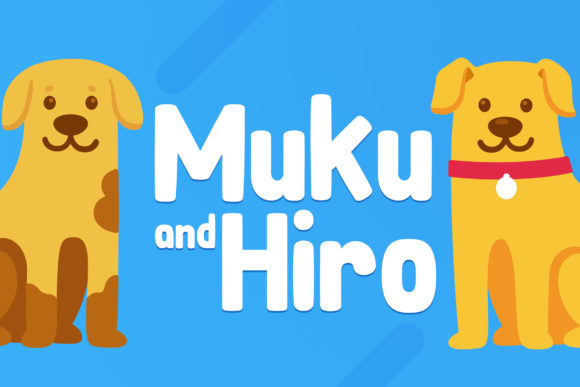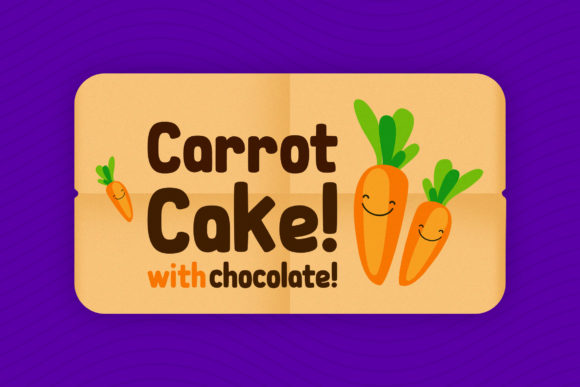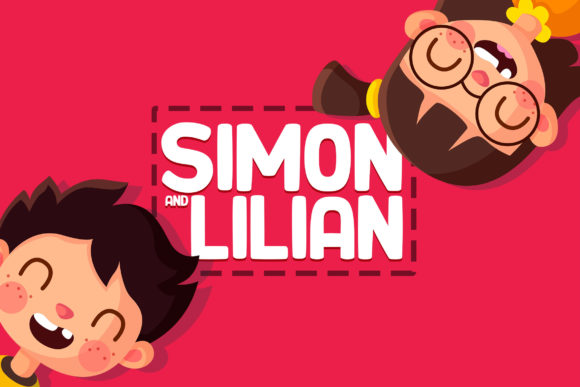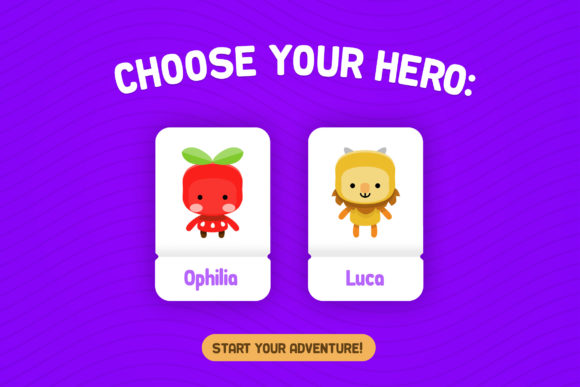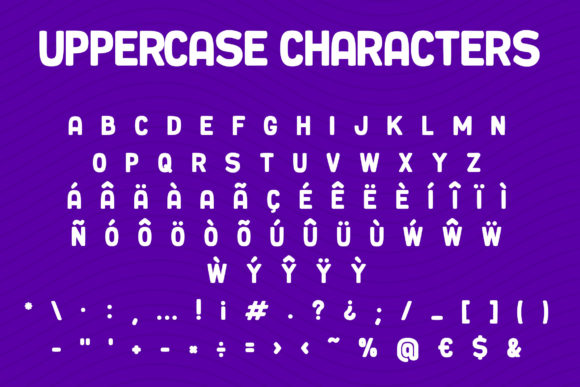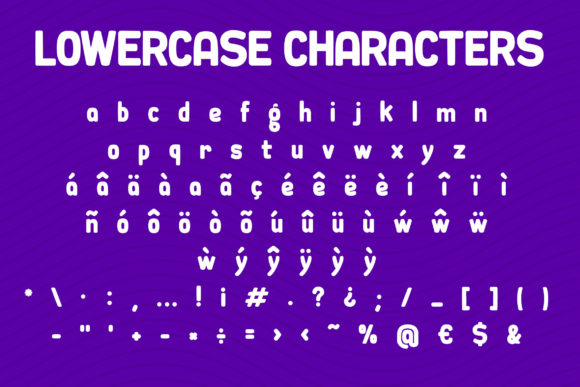
Introduction to Lucita Font
As a designer, have you ever been stuck on a creative project, struggling to find the perfect font to bring your vision to life? It’s a feeling many of us are familiar with, but what if I told you there’s a font that could make all the difference? Enter the Lucita Font, a delightful sans serif font that’s perfect for adding a playful touch to any design.
With its curvy shapes and fun aesthetic, the Lucita Font is a game-changer for designers looking to add a bit of whimsy to their work. Whether you’re designing for children or simply want to inject some personality into your project, this high-quality font is a valuable resource that’s sure to impress. Plus, with a transparent background, you can easily integrate it into any design without worrying about distracting elements.
Key Features of Lucita Font
- Features a unique, hand-drawn style with a transparent background, allowing for easy layering and customization.
- Includes a wide range of characters, including Latin, Cyrillic, and Greek alphabets, making it suitable for multilingual projects.
- Designed with a vintage, whimsical feel, making it perfect for artistic and creative projects that require a unique touch.
Honest Review: Lucita Font
I recently had the chance to work with the Lucita Font, and I must say it’s been a pleasant experience. The font is a high-quality design resource that can elevate any creative project. One of the standout features of Lucita Font is its elegant and whimsical feel, making it perfect for designs that require a touch of sophistication. ✨
- Wide range of characters and symbols, including punctuation and special characters.
- Supports both Latin and Cyrillic alphabets.
- Comes with a transparent background, making it easy to work with.
However, I did encounter some limitations while working with the font. The font is not ideal for bold or large text, as it can become distorted and difficult to read. ⚠️ Additionally, some users may find the font’s style to be a bit too ornate for certain designs. ⚠️
Overall, I’m impressed with the Lucita Font. It’s a solid design resource that can add a touch of elegance to any creative project. If you’re looking for a high-quality font to use in your free download or commercial design, I would definitely recommend giving Lucita Font a try.
Lucita Font
Tips for Getting the Most Out of Lucita Font
To get the most out of Lucita Font, use it with a transparent background to create a clean and modern design. Experiment with different font sizes and styles to add visual interest to your project.
The Lucita Font is commonly used in:
- Web design projects
- Print design projects